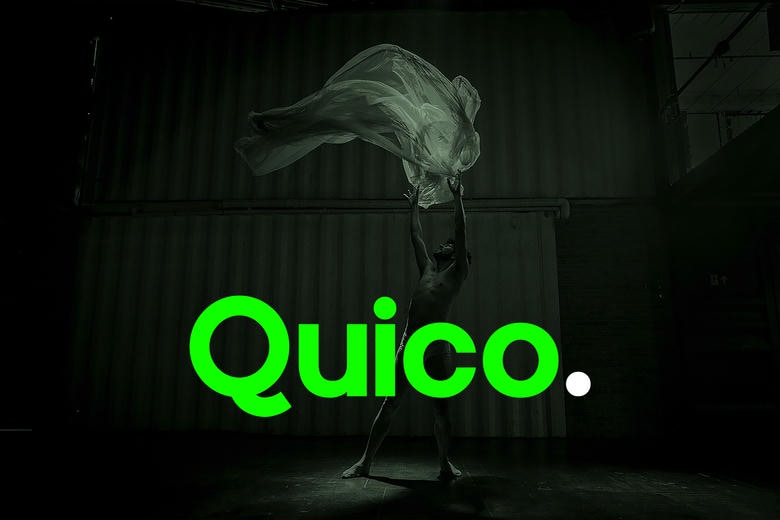
Quico Font
Quico is a clean and adorable sans serif font. Put it boldly in your projects and you will like what you get. It can be used in all sorts of designs that need to be modern and futuristic.
Quico Sans Serif Font